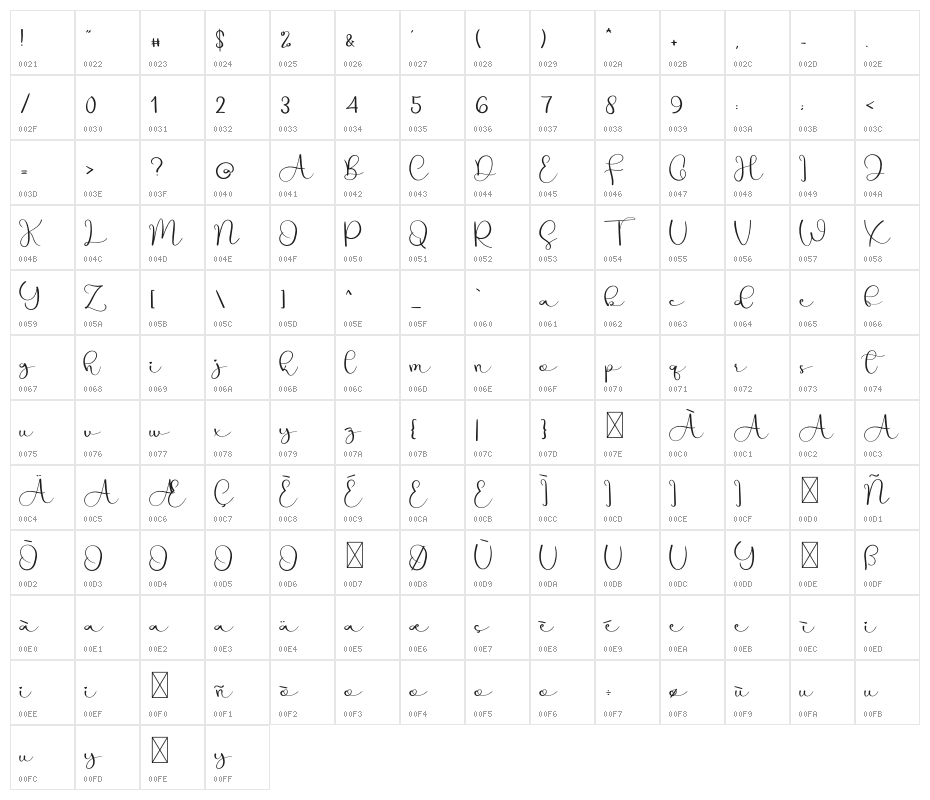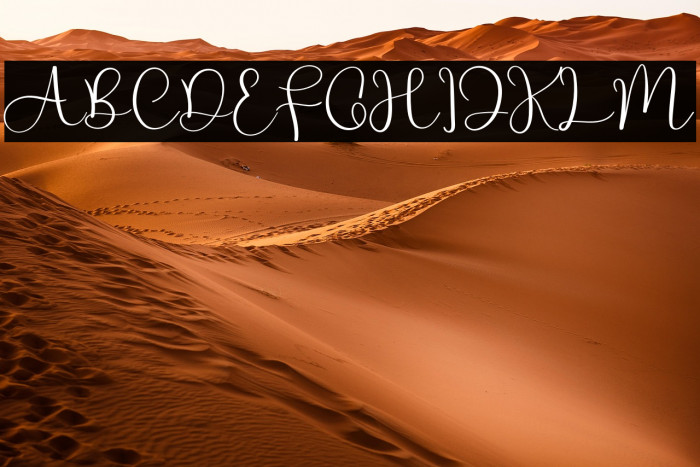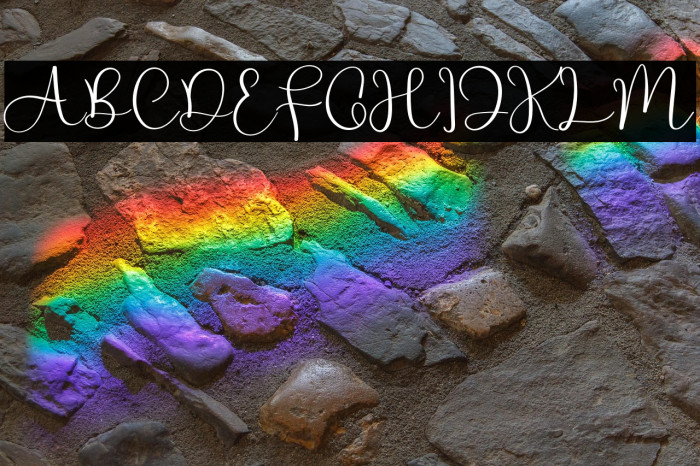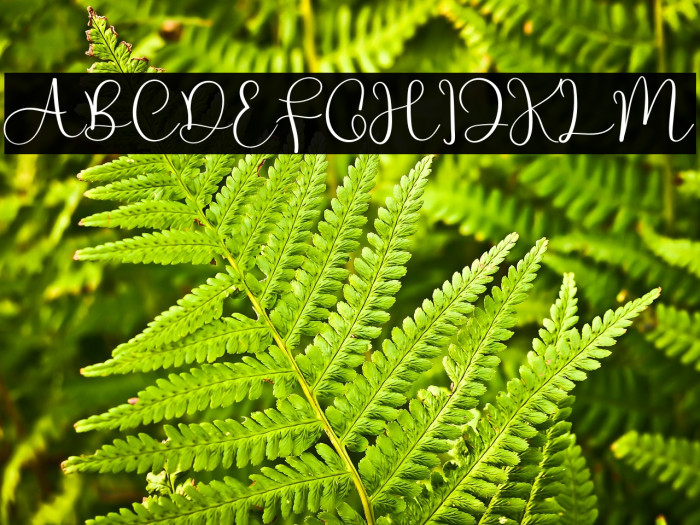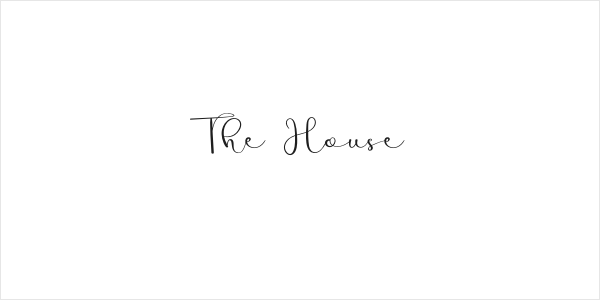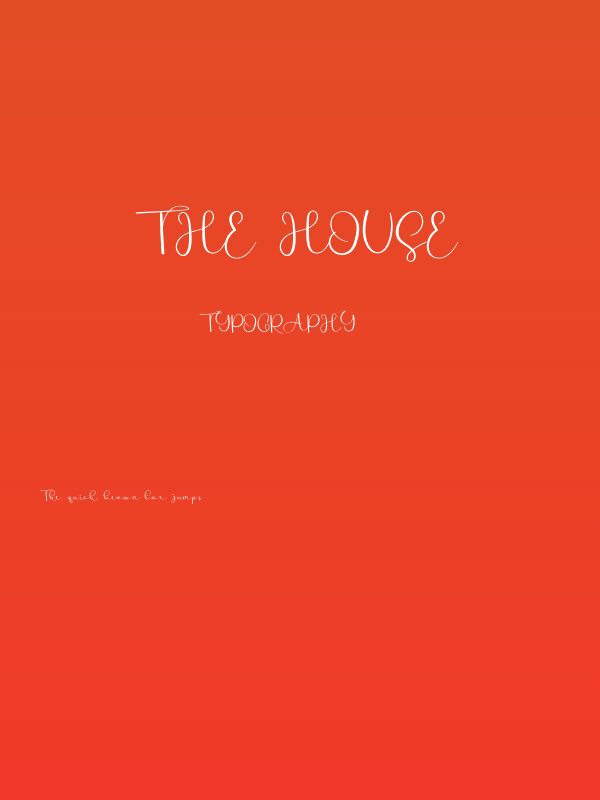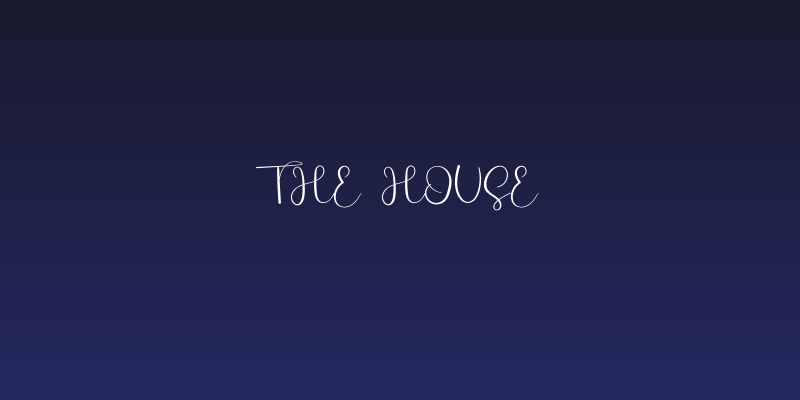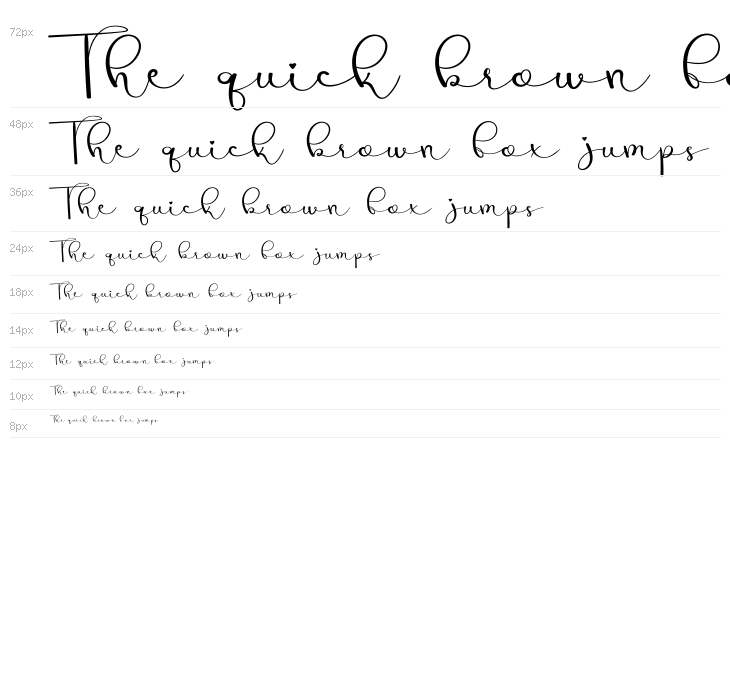
The House Font
The House Description
This font features an elegant and flowing script style, characterized by its smooth, continuous strokes and graceful curves. The uppercase letters are ornate and decorative, with loops and swirls that add a sense of sophistication. The lowercase letters maintain a consistent flow, connecting seamlessly to create a cohesive and fluid appearance. The numerals are clear and legible, with a slight slant that complements the overall script style. Special characters are thoughtfully designed, maintaining the font's elegant aesthetic. This font exudes a sense of charm and refinement, making it ideal for projects that require a touch of elegance.